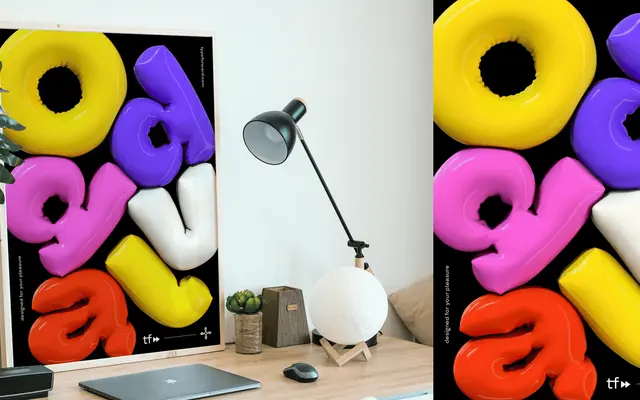
Oddval
A decorative geometric sans with prominent ink traps, available as a variable font across nine weights with italic and Cyrillic support.
Designed by Stan Partalev and Mirela Belova, Oddval pairs geometric construction with deliberately prominent ink traps, giving it a distinctive optical character at display sizes. The family spans nine weights from Hairline to Black, each with a matching italic, and ships as a variable font for continuous weight interpolation. A broad OpenType feature set includes multiple stylistic sets, oval Cyrillic alternates, ligatures, fractions and case-sensitive punctuation.
Described explicitly as a decorative geometric sans serif with prominent ink traps; the geometric construction and decorative intent place it firmly in this subcategory.